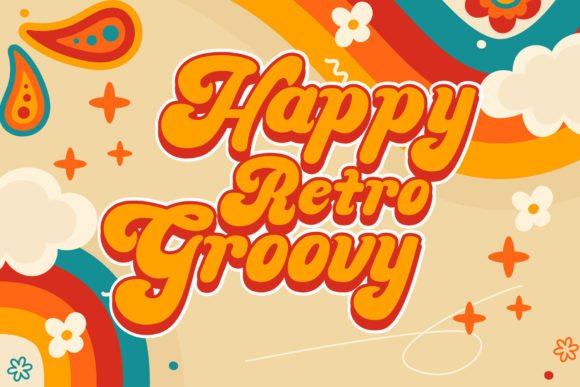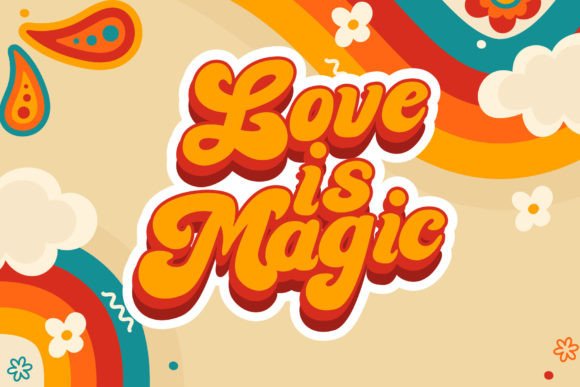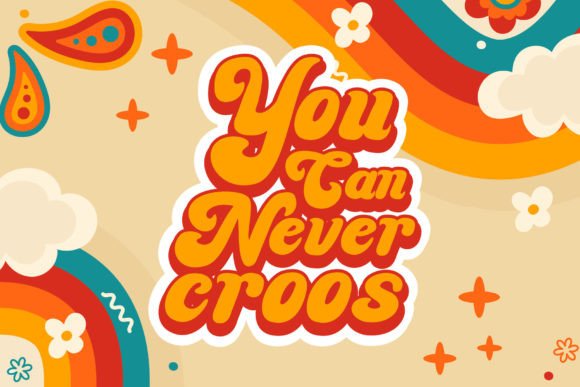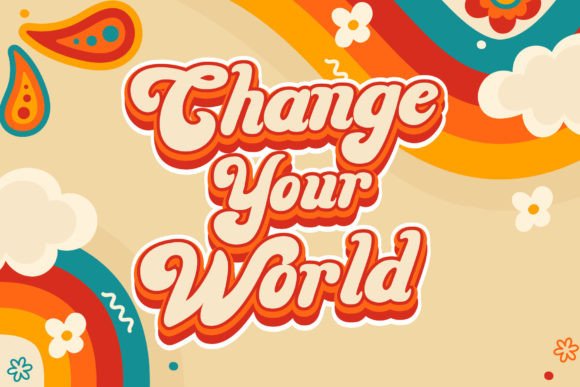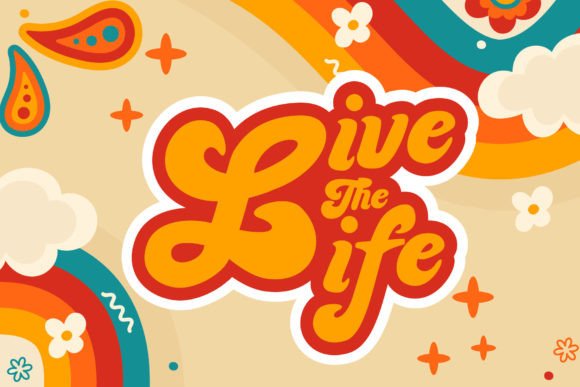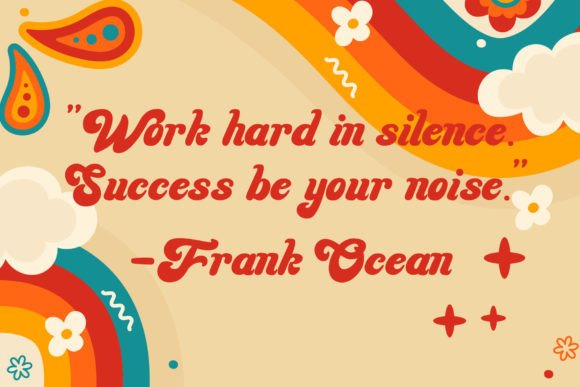
Introducing Bold Groovy Font: Add a Retro Touch to Your Designs
Are you looking for a font that can add a special retro touch to your design ideas? Look no further than Bold Groovy Font! This cool, vintage-style handwritten font is perfect for designers and crafters who want to create unique and eye-catching designs. In this article, we’ll explore the features and benefits of Bold Groovy Font and show you how to use it to take your designs to the next level.
What is Bold Groovy Font?
Bold Groovy Font is a stylish and versatile font that is inspired by the classic handwritten fonts of the past. Its bold and groovy design makes it perfect for creating eye-catching designs that are sure to grab attention. Whether you’re looking to create logos, branding, invitations, stationery, wedding designs, social media posts, or any other type of design, Bold Groovy Font is the perfect choice.
Key Features of Bold Groovy Font
- Vintage-style handwritten design: Bold Groovy Font features a unique and stylish handwritten design that is reminiscent of the past.
- PUA encoded: This font is PUA encoded, which means you can access all glyphs and swashes easily.
- Bold and groovy: The font’s bold design makes it perfect for creating eye-catching designs that are sure to grab attention.
- Versatile: Bold Groovy Font can be used for a wide range of design projects, including logos, branding, invitations, stationery, wedding designs, social media posts, and more.
Benefits of Using Bold Groovy Font
There are many benefits to using Bold Groovy Font in your designs. Here are just a few:
- Adds a retro touch: Bold Groovy Font is perfect for adding a retro touch to your designs. Its vintage-style handwritten design is sure to evoke memories of the past.
- Easy to use: The font is PUA encoded, which makes it easy to access all glyphs and swashes.
- Highly versatile: Bold Groovy Font can be used for a wide range of design projects, making it a great addition to any designer’s toolkit.
- Unique and eye-catching: The font’s bold and groovy design makes it perfect for creating unique and eye-catching designs that are sure to grab attention.
How to Use Bold Groovy Font
Using Bold Groovy Font is easy! Here are a few tips to get you started:
- Logos and branding: Use Bold Groovy Font to create unique and eye-catching logos and branding materials.
- Invitations and stationery: Add a retro touch to your invitations and stationery with Bold Groovy Font.
- Wedding designs: Use the font to create beautiful and unique wedding designs, including wedding invitations, programs, and more.
- Social media posts: Add a bold and groovy touch to your social media posts with Bold Groovy Font.
Tips and Tricks for Getting the Most Out of Bold Groovy Font
Here are a few tips and tricks for getting the most out of Bold Groovy Font:
- Experiment with different colors: Bold Groovy Font looks great in a wide range of colors, so don’t be afraid to experiment and find the perfect color for your design.
- Use it with other fonts: Bold Groovy Font pairs well with a wide range of other fonts, so try using it with other fonts to create a unique and eye-catching design.
- Play with swashes and glyphs: The font’s PUA encoding makes it easy to access all glyphs and swashes, so don’t be afraid to get creative and add some extra flair to your design.
Bold Groovy Font is a unique and versatile font that is perfect for designers and crafters who want to add a retro touch to their designs. With its bold and groovy design, PUA encoding, and highly versatile nature, it’s the perfect choice for a wide range of design projects. Whether you’re looking to create logos, branding, invitations, stationery, wedding designs, social media posts, or any other type of design, Bold Groovy Font is sure to be a great addition to your toolkit.